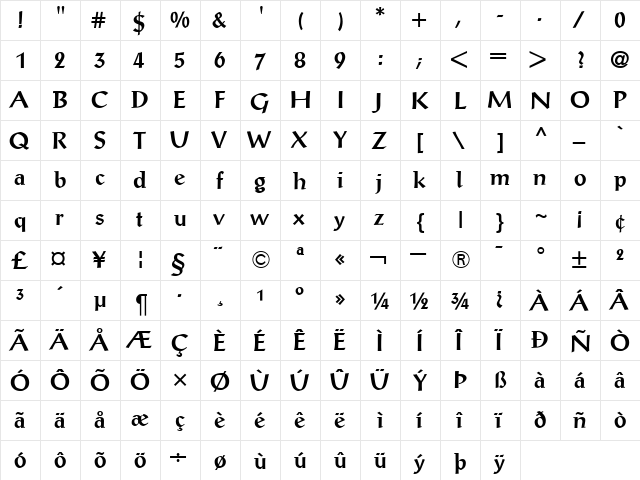
PostAntiquaBE-Medium Medium Font Preview
PostAntiquaBE-Medium Medium
Design Context for PostAntiquaBE-Medium Typeface
PostAntiquaBE-Medium takes a measured approach to typography — its balanced proportions and neutral character make it a reliable workhorse for both digital and print work.